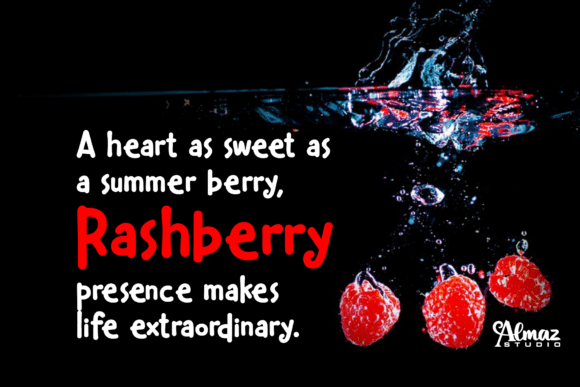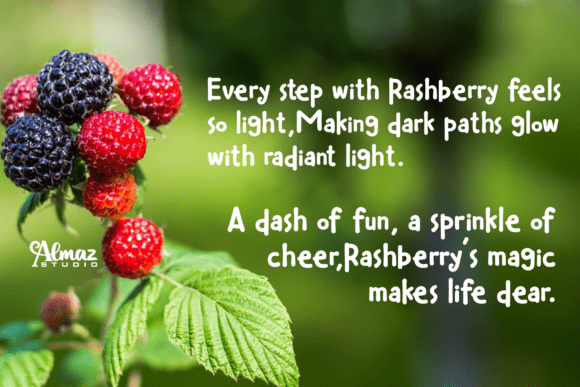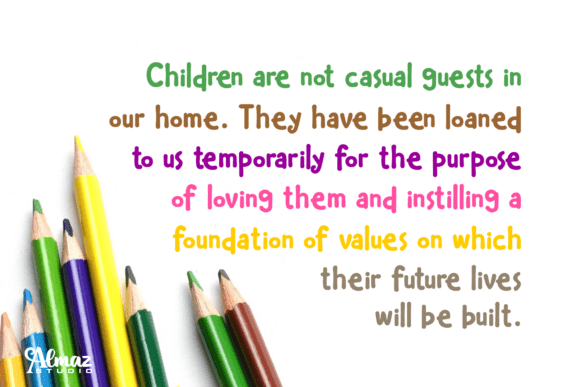
Introduction to Rashberry Font
Have you ever stumbled upon a design project that just sparks joy? For me, it was the moment I laid eyes on Rashberry Font – a sweet, cheerful kids’ display font that radiates warmth and playfulness. The rounded, soft, and slightly quirky letterforms instantly caught my attention, transporting me to a world of colorful creativity. As a designer, I know how crucial it is to find that perfect design resource to elevate a project, and Rashberry Font is a gem that deserves to be discovered.
Perfect for children’s products, food packaging, educational posters, storybooks, and branding that wants to feel playful yet easy to read, Rashberry Font is a high-quality design resource that offers a free download with a transparent background, making it a versatile choice for any creative project.
Key Features of Rashberry Font
- Unique Design: The Rashberry Font is a creative and playful design resource ideal for various creative projects.
- High-Quality Typography: This font features high-quality typography with clear and readable characters, making it perfect for print and digital designs.
- Transparent Background: The Rashberry Font comes with a transparent background, allowing designers to easily overlay it on any image or background.
- Resolution: The Rashberry Font is designed at a high resolution of 300 DPI, making it suitable for print designs and large-scale applications.
Honest Review: Rashberry Font
One of the standout features of the Rashberry Font is its unique and quirky design. It’s perfect for creative projects that need a bit of personality and flair. The font also comes with a transparent background, making it easy to customize and combine with other design elements.
- Unique and quirky design
- Perfect for creative projects
- May not be suitable for formal or professional projects
- Some characters may not be available in certain languages
Overall, I’m impressed with the Rashberry Font. It’s a high-quality design resource that’s perfect for designers who want to add a bit of personality to their projects. With its unique design and transparent background, it’s a great choice for creative projects. Just be aware of the limitations, and you’ll be all set.
Alternatives to Rashberry Font
Pacifico is a beautiful script font that is perfect for creative projects that require a touch of elegance. It features a high-quality design with a transparent background, making it ideal for use on various backgrounds. When to use: Wedding invitations, creative quotes, and other design projects that require a romantic feel. How it compares to Rashberry Font: Pacifico has a more elegant and sophisticated look compared to Rashberry Font, which is more playful and fun.